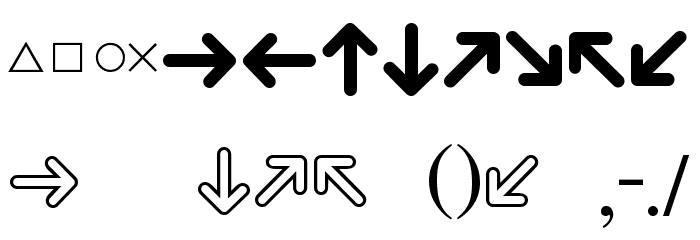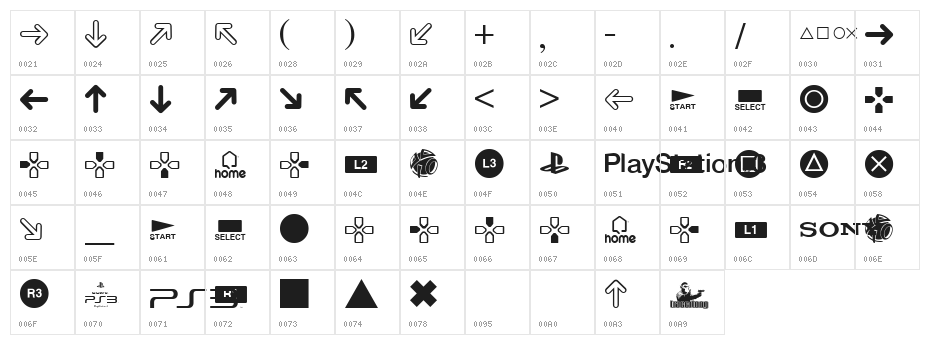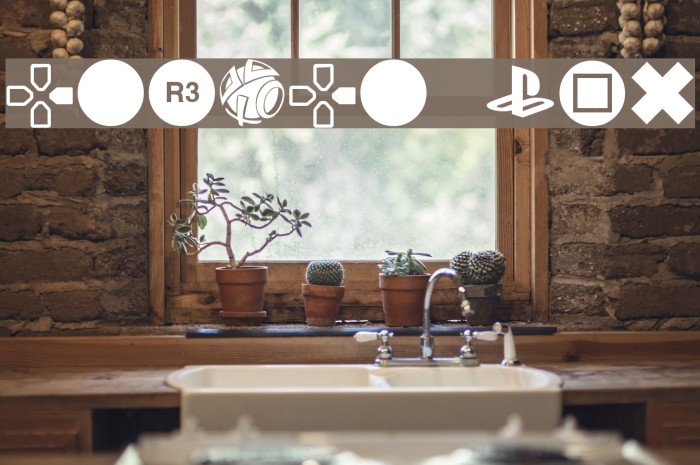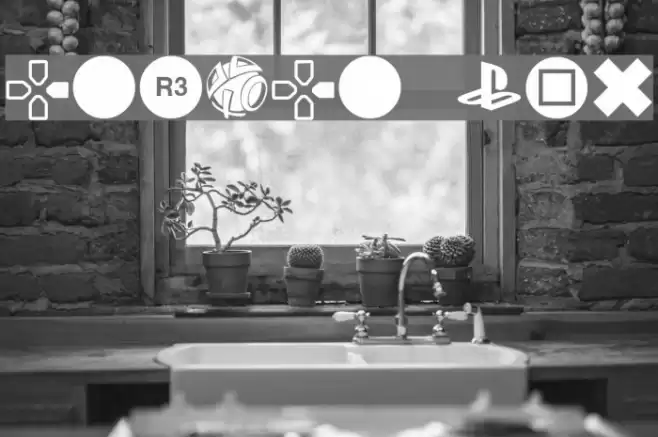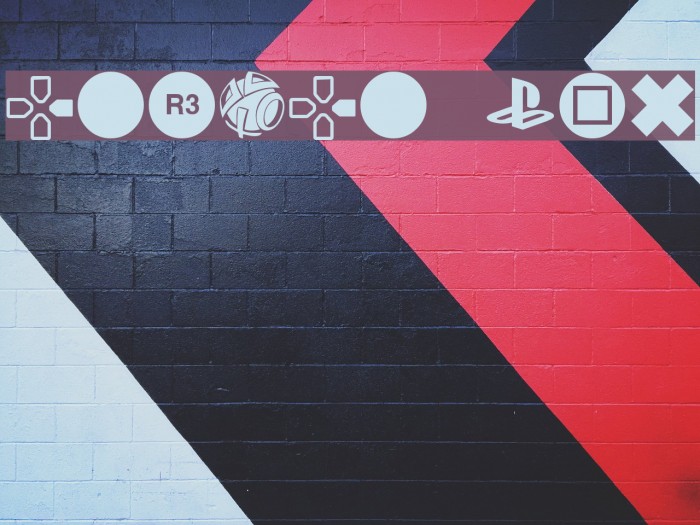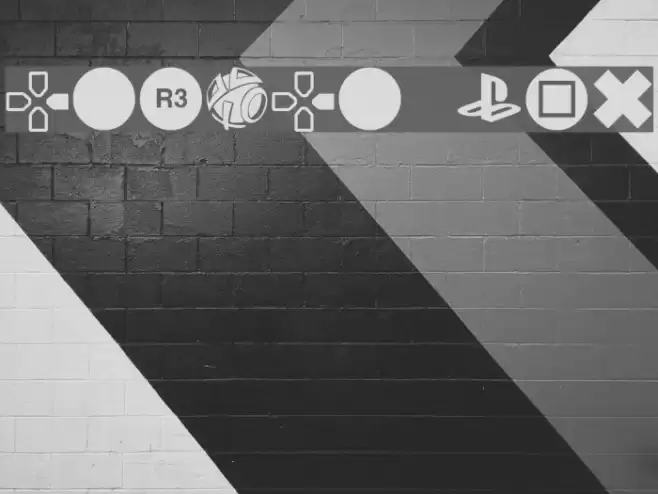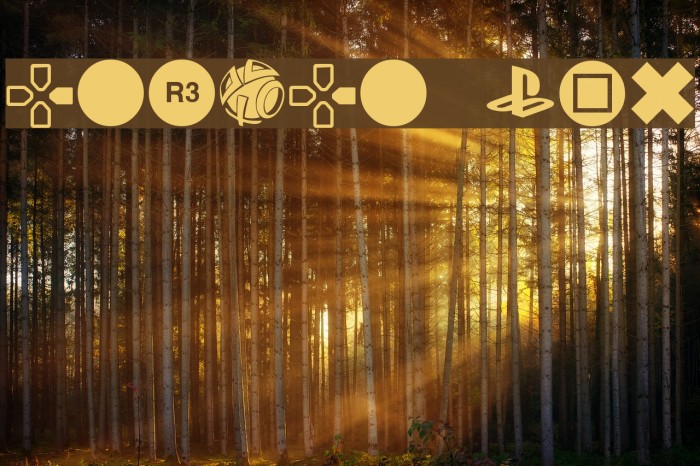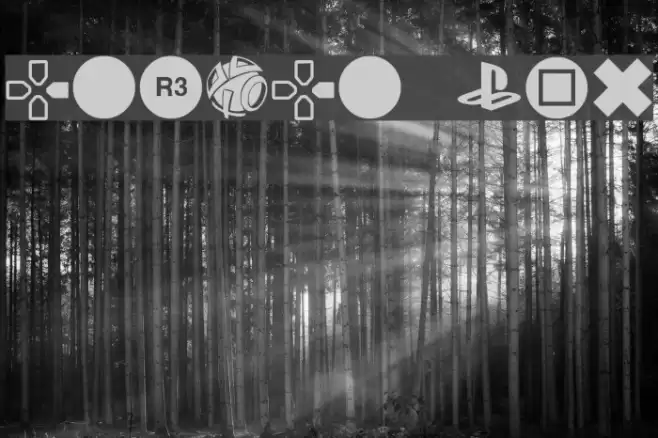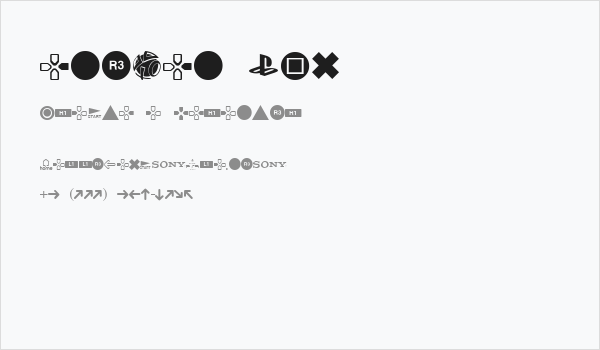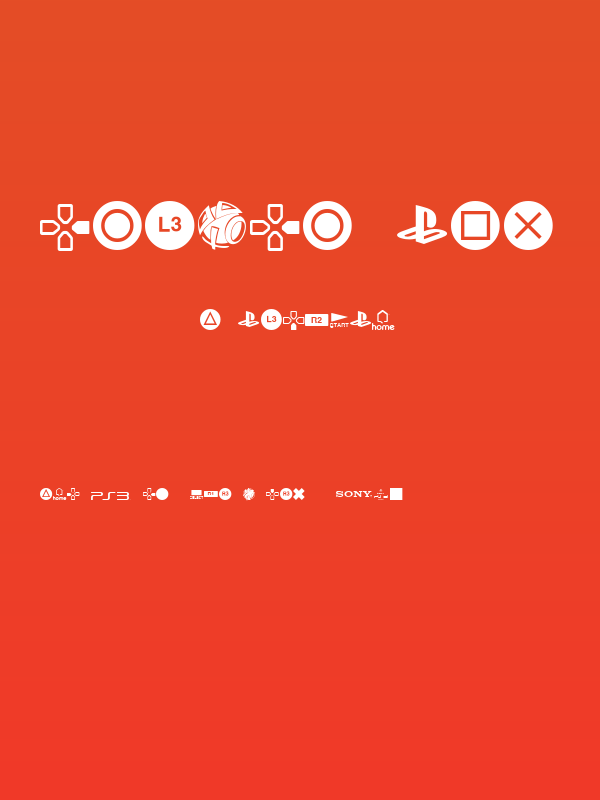
Iconic PSx Font
Iconic PSx Description
A decorative font featuring stylized icons and symbols inspired by video game controllers, including arrows, geometric shapes, and button labels. The glyphs are bold, geometric, and highly recognizable, with a focus on clarity and visual impact.
| Overall Style | Decorative, Modern, Thematic |
| Use Case | Logos, Icons, Themed headlines, Gaming graphics |
| Proposed Projects | Video game UI mockups, fan art, themed posters, gaming event materials, instructional graphics for controllers. |